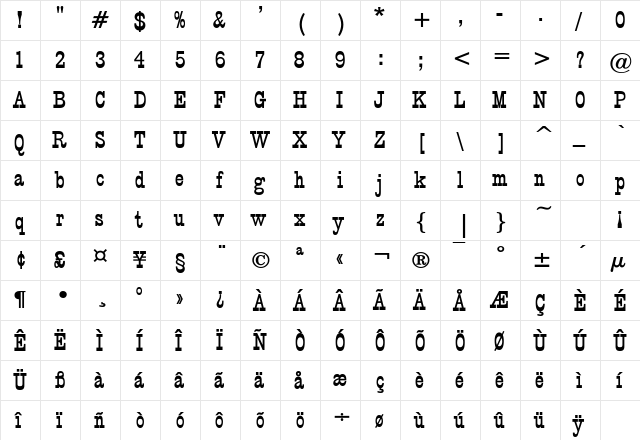
CircusExtraBold Regular Font Preview
CircusExtraBold Regular
CircusExtraBold Regular Font Details
Design Context for CircusExtraBold Typeface
CircusExtraBold is a composed and adaptable typeface that performs quietly and consistently across a wide range of design contexts. Its bold stroke weight gives it real presence on the page.